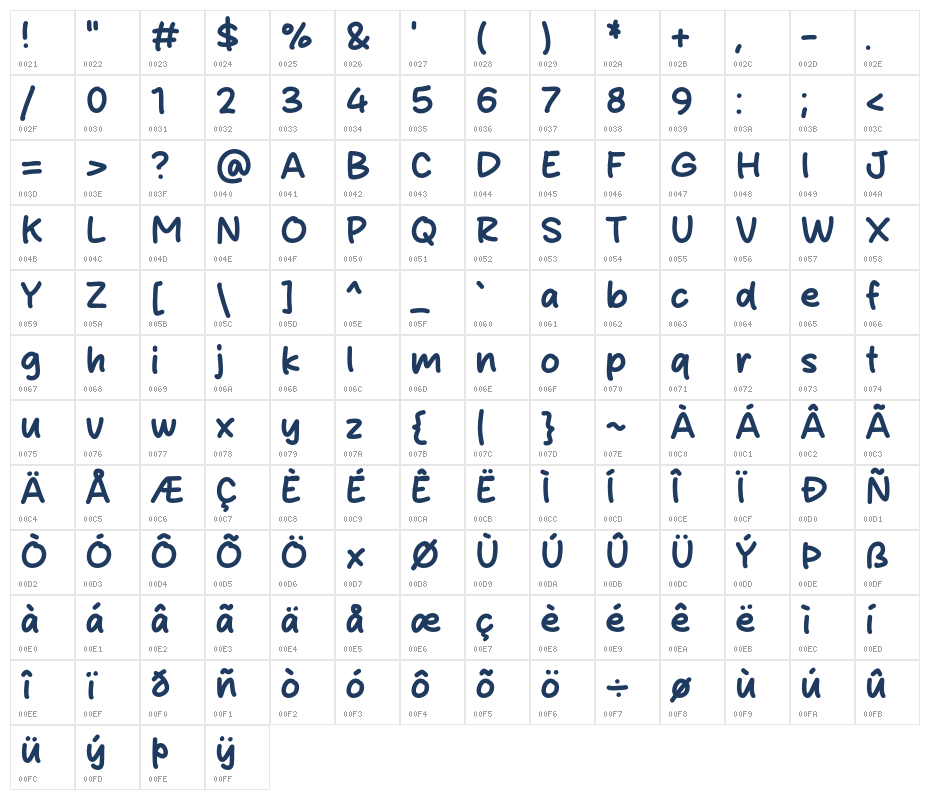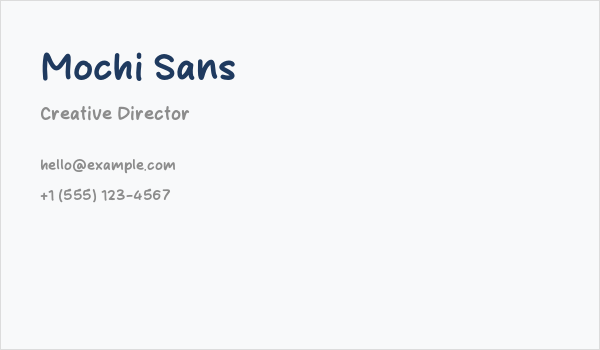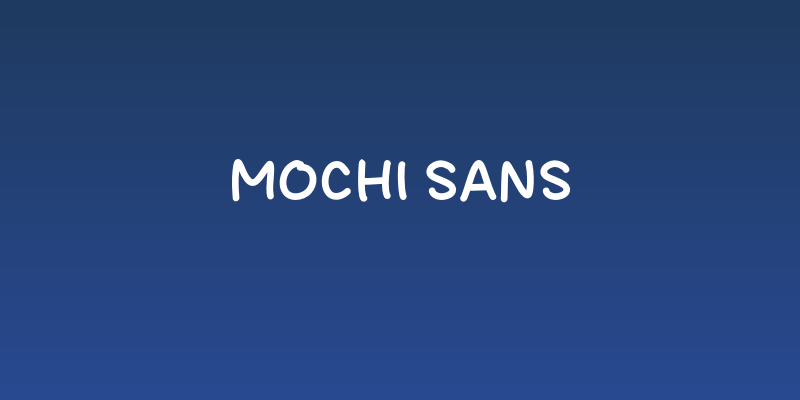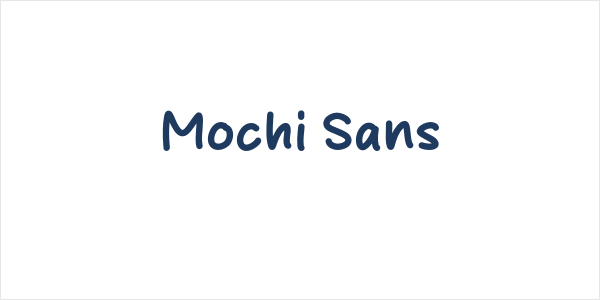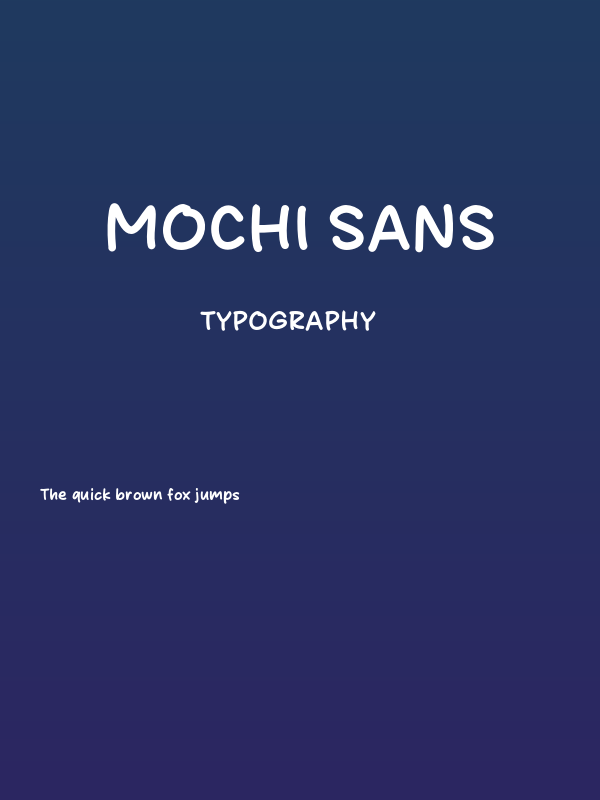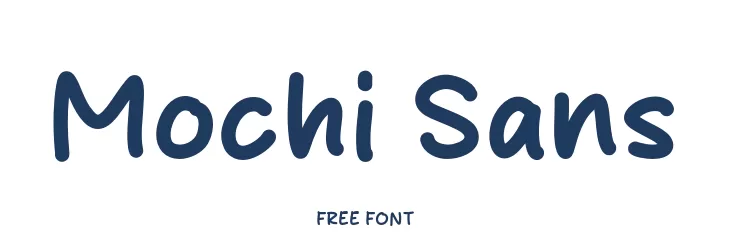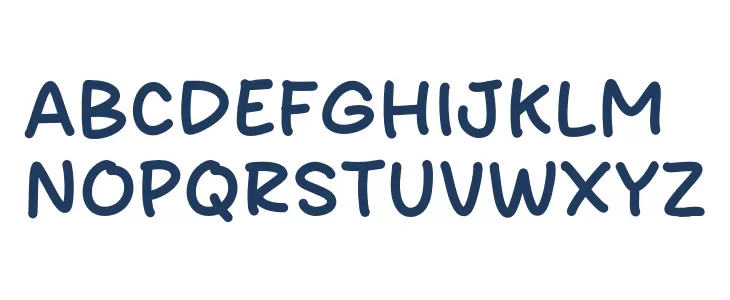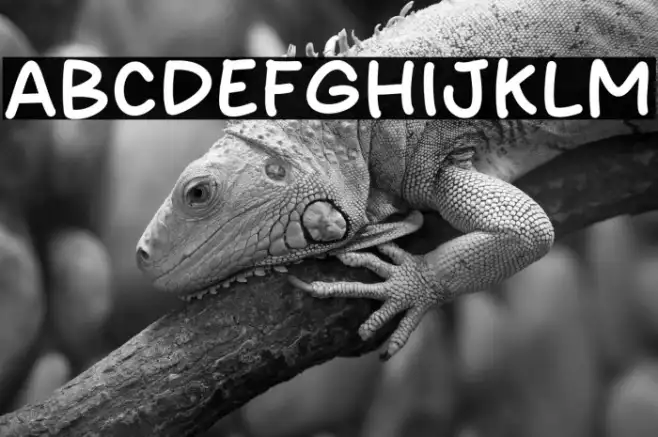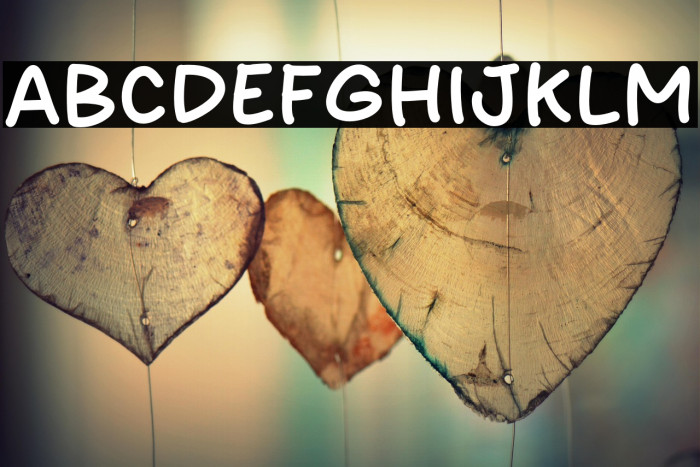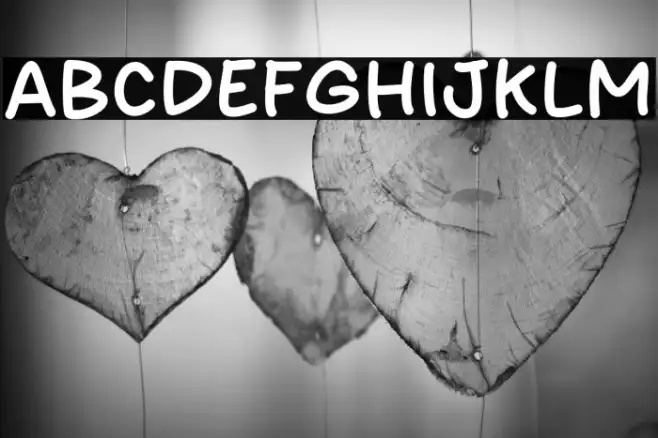
Mochi Sans Font
Mochi Sans Description
A playful, rounded, handwritten style font with a casual and friendly appearance.
| Overall Style | Casual, Friendly, Playful |